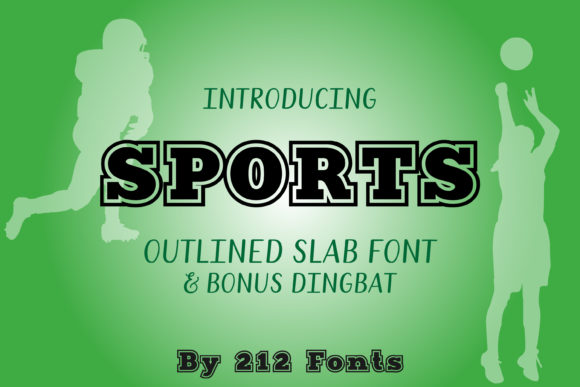
Introducing Sports Font, the ultimate choice for all your college design needs! Created by the talented team at 212 Fonts, this bold display font is a true masterpiece, meticulously crafted to become an absolute favorite among designers and enthusiasts alike.
With its casual charm and down-to-earth appeal, Sports Font exudes a unique charisma that is bound to captivate your audience. Its readability is unparalleled, ensuring that every word stands out with clarity and impact. Whether you're designing a sports poster, a game-day flyer, or a college-themed website, this font will deliver the perfect touch of authenticity.
What sets Sports Font apart is its incredible versatility. It effortlessly adapts to any context, seamlessly blending into busy backgrounds or standing proudly as a standalone headline. No matter the medium or platform, this font transforms ordinary text into an extraordinary visual experience.
Imagine your college logo emblazoned across a merchandise line, instantly grabbing attention with the bold and spirited Sports Font. Feel the adrenaline rush as you create stunning banners and ads that scream energy and excitement. This font turns every design project into a thrilling journey that resonates with your target audience.
But Sports Font isn't just about aesthetics; it's about evoking emotions. Its dynamic and powerful strokes ignite a sense of passion and determination, inspiring your audience to push beyond their limits. Whether you're promoting a sports event, a fitness program, or a team spirit campaign, this font will evoke the perfect emotions and rally support like never before.
Sports Font is more than just a font; it's a game-changer. It fuels creativity, ignites inspiration, and transforms your designs into unforgettable works of art. So, why settle for ordinary fonts when you can have the best font for college designs? Embrace the captivating charm and unrivaled versatility of Sports Font and take your designs to new heights!